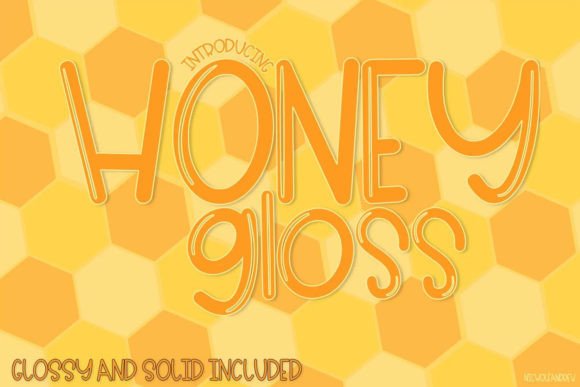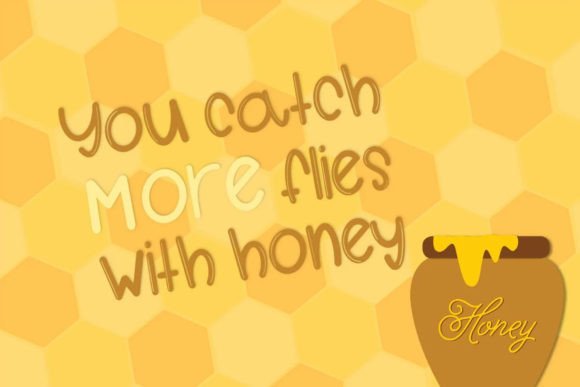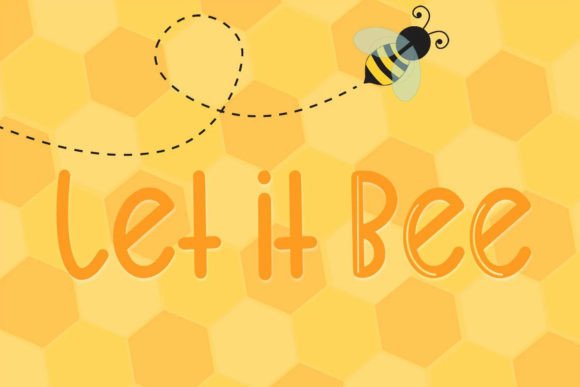
Honey Gloss Font
Honey Gloss is an adorable bubble handwritten font that offers both shiny and solid versions, providing a versatile and playful option for your creative projects. Specifically designed for use with cutting machines, Honey Gloss features optimized nodes to ensure a smooth and efficient cutting process. This makes it perfect for a variety of applications, including decals, stickers, notebooks, and more.
The adorableness of Honey Gloss is immediately apparent, making it an excellent choice for projects that require a fun and whimsical touch. The bubble handwritten style adds a sense of playfulness, creating a unique and engaging visual experience.
The dual versions of Honey Gloss, with shiny and solid options, add a layer of versatility to your designs. Whether you’re looking for a glossy effect or a more traditional appearance, this font seamlessly adapts, providing creative flexibility for your projects.
The optimization for cutting machines is a practical feature, ensuring that your cut machine won’t slow down when working with Honey Gloss. This user-friendly quality makes it a reliable choice for projects that involve cutting, such as decals and stickers.
Incorporating Honey Gloss into your projects is an invitation to infuse them with a cute and bubbly aesthetic. This handwritten font becomes a valuable tool, ready to add character and charm to your designs, especially when working with cutting machines.
In summary, Honey Gloss is not just a font; it’s an adorable and versatile design asset tailored for cutting machines. With its bubble handwritten style and optimized nodes, Honey Gloss stands ready to be the perfect companion for a variety of creative endeavors, making your designs cute, playful, and efficiently crafted.